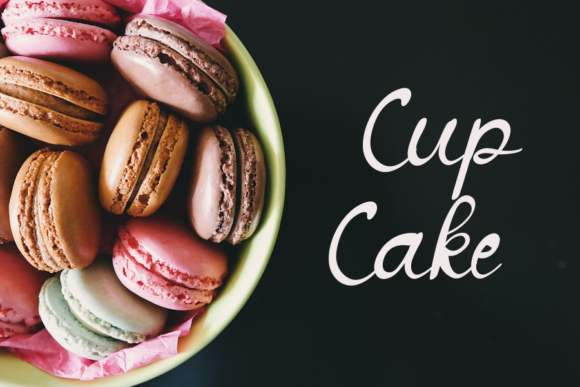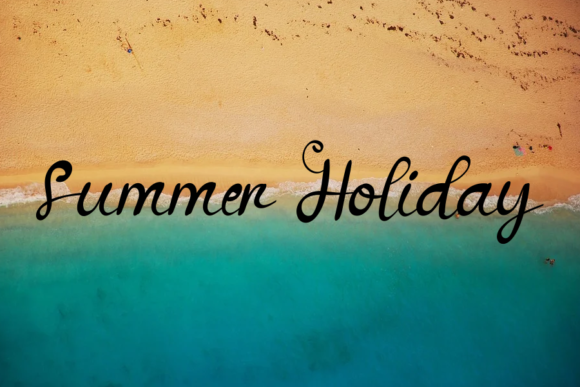
Halloween Font
db-ku.com - Script & Handwritten -- Halloween is a delicate, elegant and flowing handwritten font. It has beautiful and well balanced characters and as a result, it matches a wide pool of designs. Fall for its ravishing style and use it to create gorgeous designs.